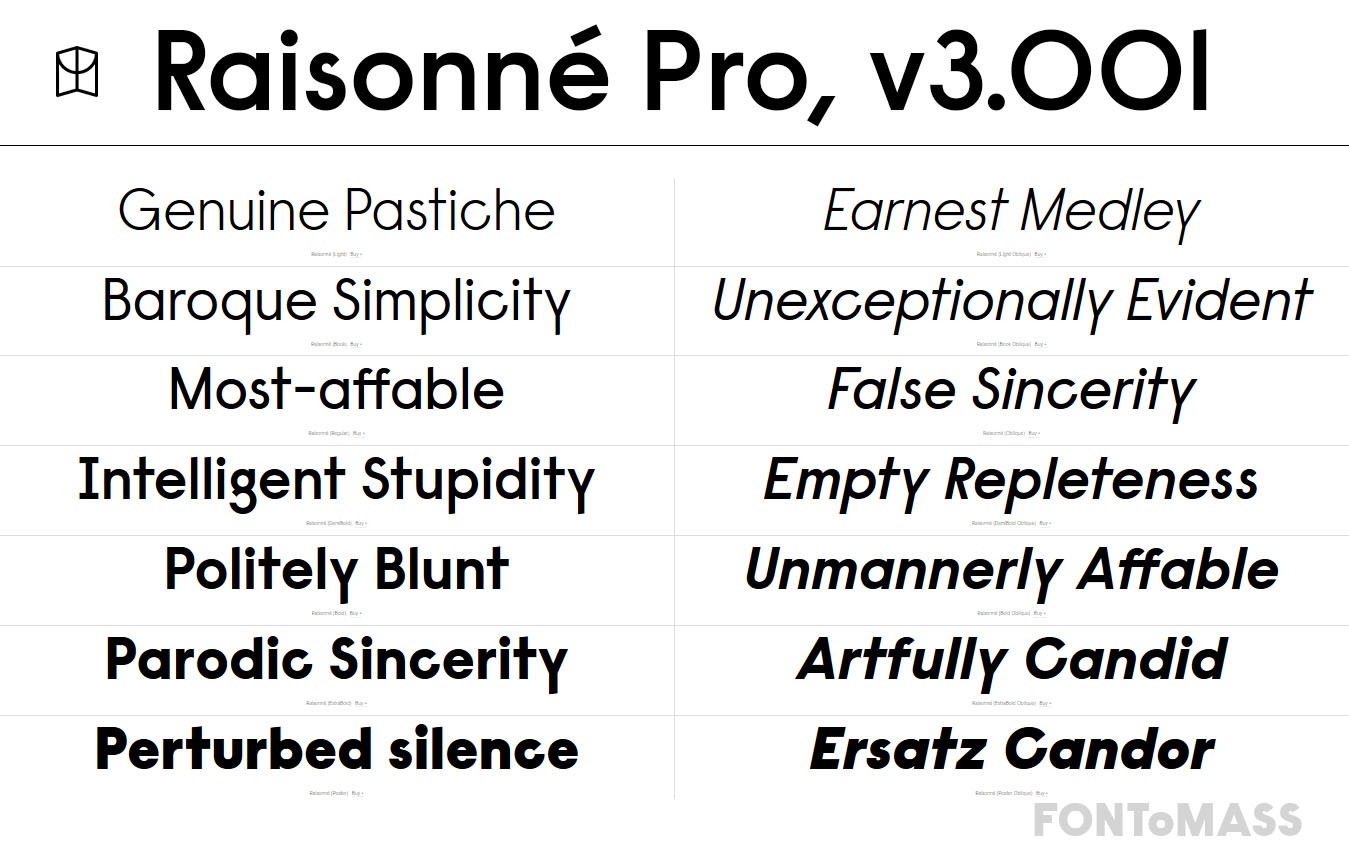
Raisonne Pro Font
Raisonne Pro Font is perfect for intellectual publications, academic research, philosophical journals, analytical reports, scholarly presentations, think tank branding, research institutions, educational textbooks, scientific documentation, and professional analytical materials.
What makes Raisonne Pro Font exciting is its intellectual sophistication that embodies rational thinking and scholarly discourse through methodically crafted letterforms. This distinguished typeface combines analytical precision with readable elegance, creating a personality that communicates intelligence, logic, and thoughtful reasoning. The font's scholarly character and rational appeal make it perfect for academic institutions, research organizations, and intellectual brands seeking to convey analytical depth and scholarly authority in competitive knowledge-based markets.
The Raisonne Pro Font family includes Regular, Bold, Light, Medium, Analytical, Scholarly, Condensed, and Academic variants. Each weight maintains the font's intellectual character while providing comprehensive typographic flexibility for academic brand identity systems and scholarly design applications across diverse educational platforms.
Whether you're developing academic brand identities, creating scholarly publications, designing research presentations, or building intellectual marketing campaigns, Raisonne Pro Font delivers unmatched analytical appeal and scholarly sophistication. Its intellectual presence makes it perfect for universities, research institutes, analytical firms, and educational organizations seeking authentic academic representation.
The font's logical proportions and scholarly details ensure optimal performance across lengthy academic texts while maintaining its distinctive intellectual character. Each letterform has been carefully designed to enhance analytical thinking and scholarly comprehension, making it ideal for complex research documentation and academic publications.
This versatile typeface excels in academic environments, offering designers the authority needed for comprehensive scholarly brand communication strategies. The extensive character set includes analytical alternates, scholarly ligatures, and academic symbols for research market positioning and intellectual brand storytelling.